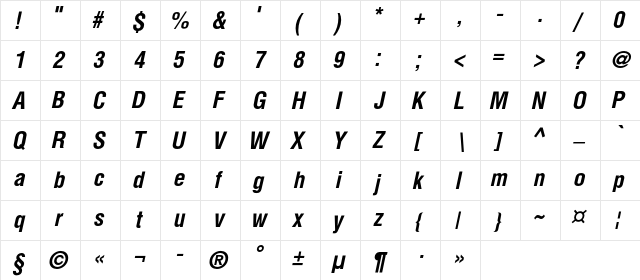
HeliosCond Bold Italic Font Preview
Design Context for HeliosCond Typeface
HeliosCond offers clean, dependable letterforms without strong stylistic allegiance, making it a practical choice for designers who need flexibility. The dynamic lean of this cut emphasises speed and emphasis in any layout. The heavy weight commands attention and anchors typographic hierarchies. The condensed width makes it efficient for tight spaces without sacrificing legibility.